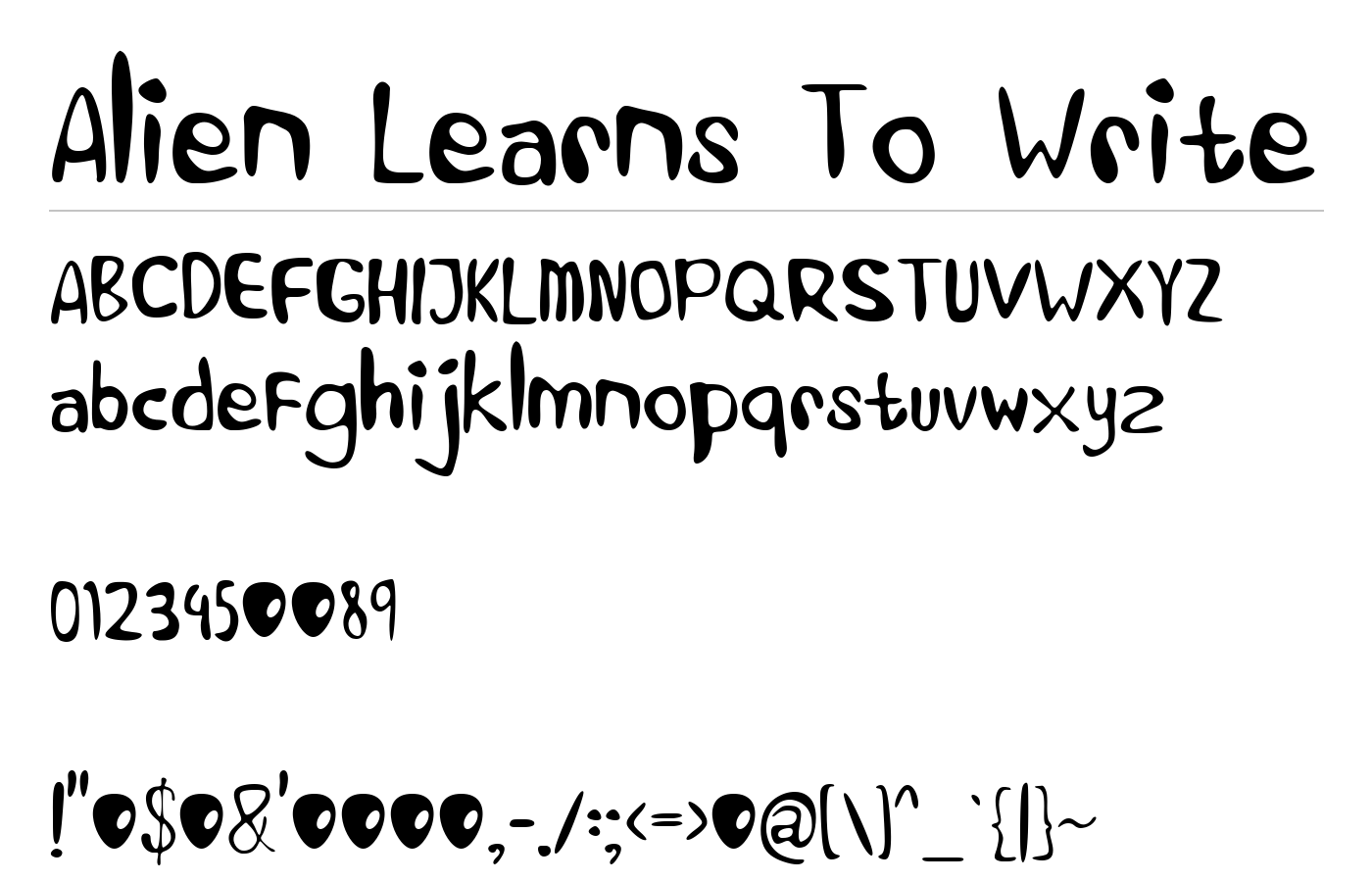
Alien Learns To Write is a playful, handwritten sans serif font with a quirky and casual feel. Its uneven stroke widths and rounded, irregular shapes evoke a fun, childlike style that works well for creative projects, informal branding, and whimsical designs. This font is ideal for adding personality to logos, posters, and editorial content aimed at a youthful or imaginative audience.
Alien Learns To Write Font
About Alien Learns To Write Font
| Font family | Alien Learns To Write Font |
| Designer | Kurnia Setyadi |